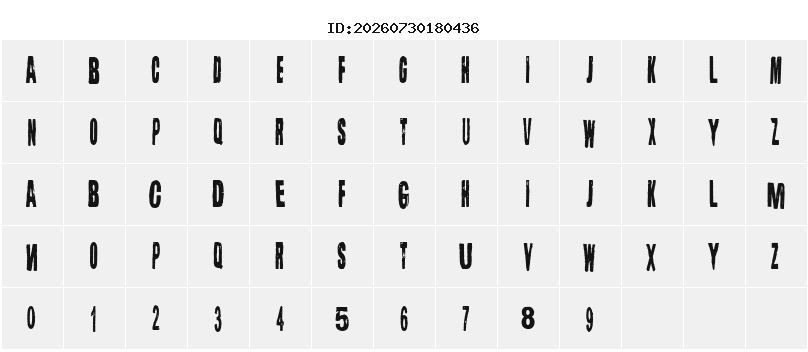
About Lugosi.ttf
Lugosi.ttf is a modern, elegant sans-serif font designed for ultimate readability and visual harmony. Perfect for branding, headlines, web design, and print materials.